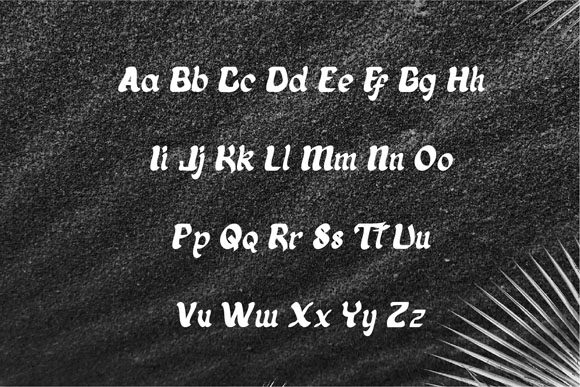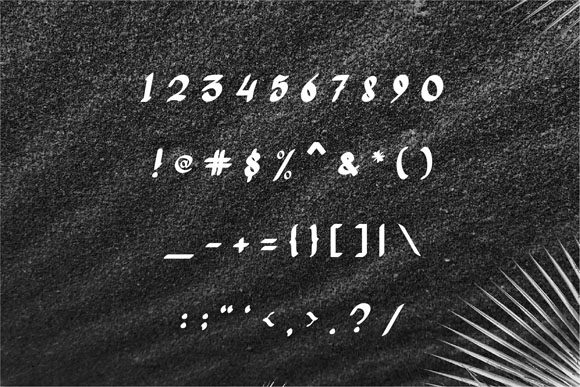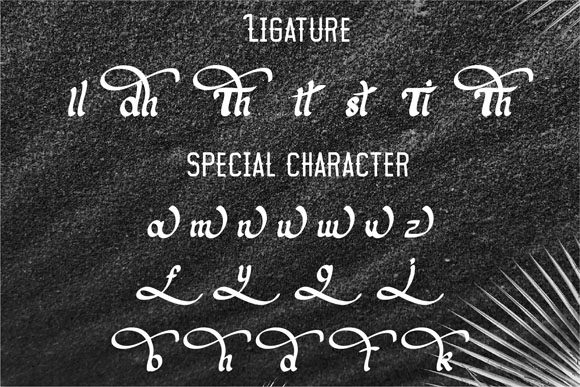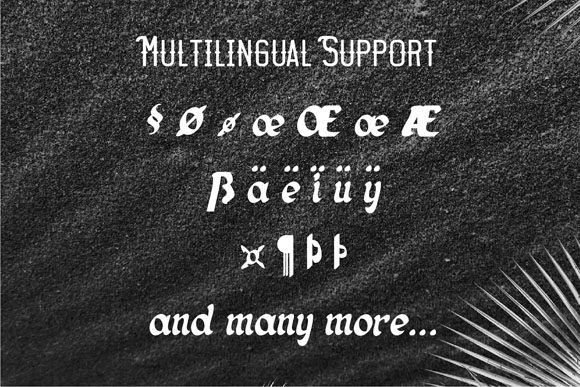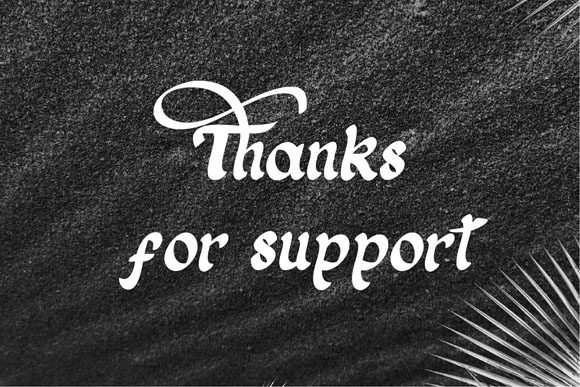
Alladhina Font
About Alladhina Font
Alladhina is a fun and cool handwritten font with an amazing feel. It will turn any design project into a true standout!